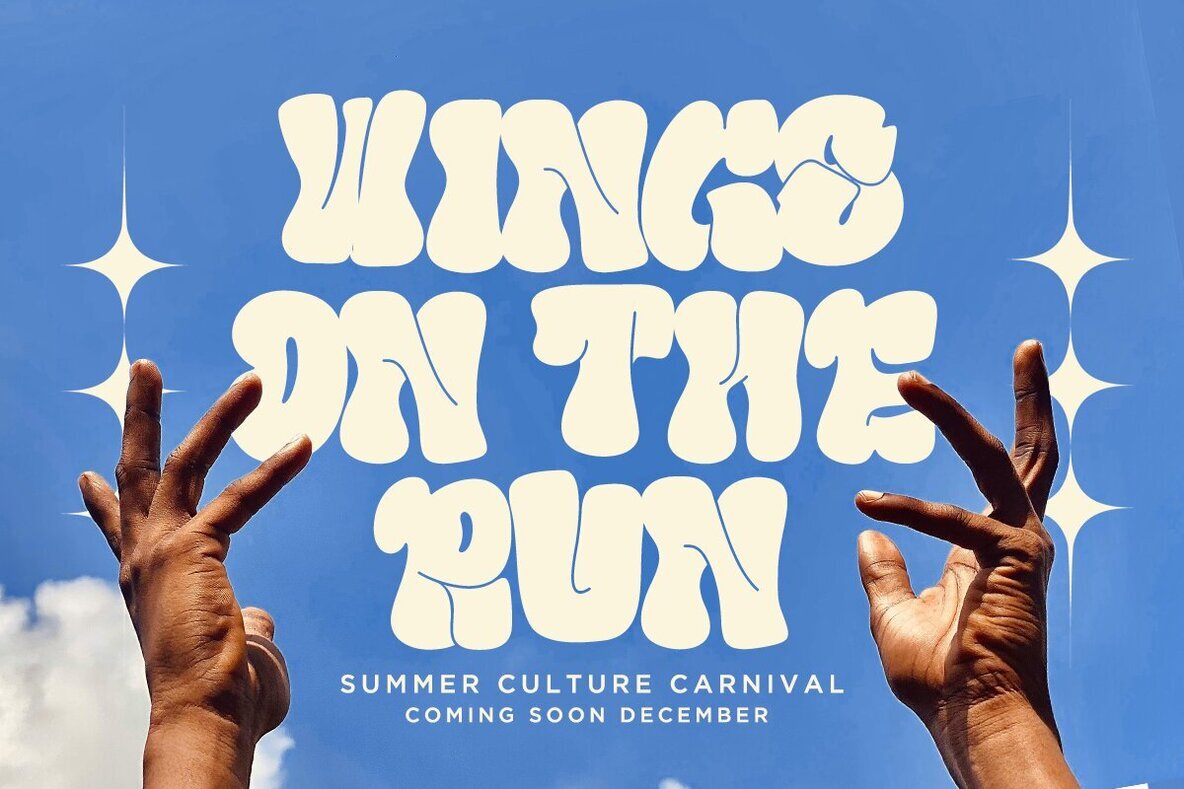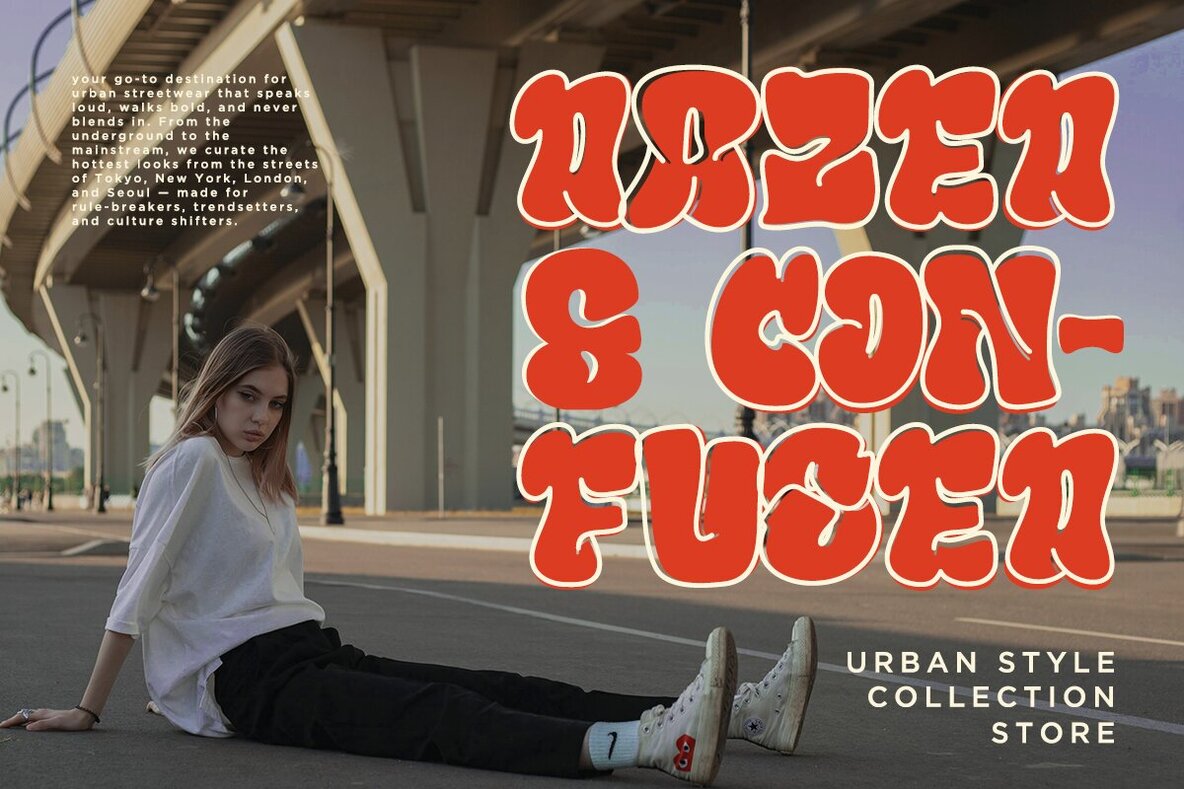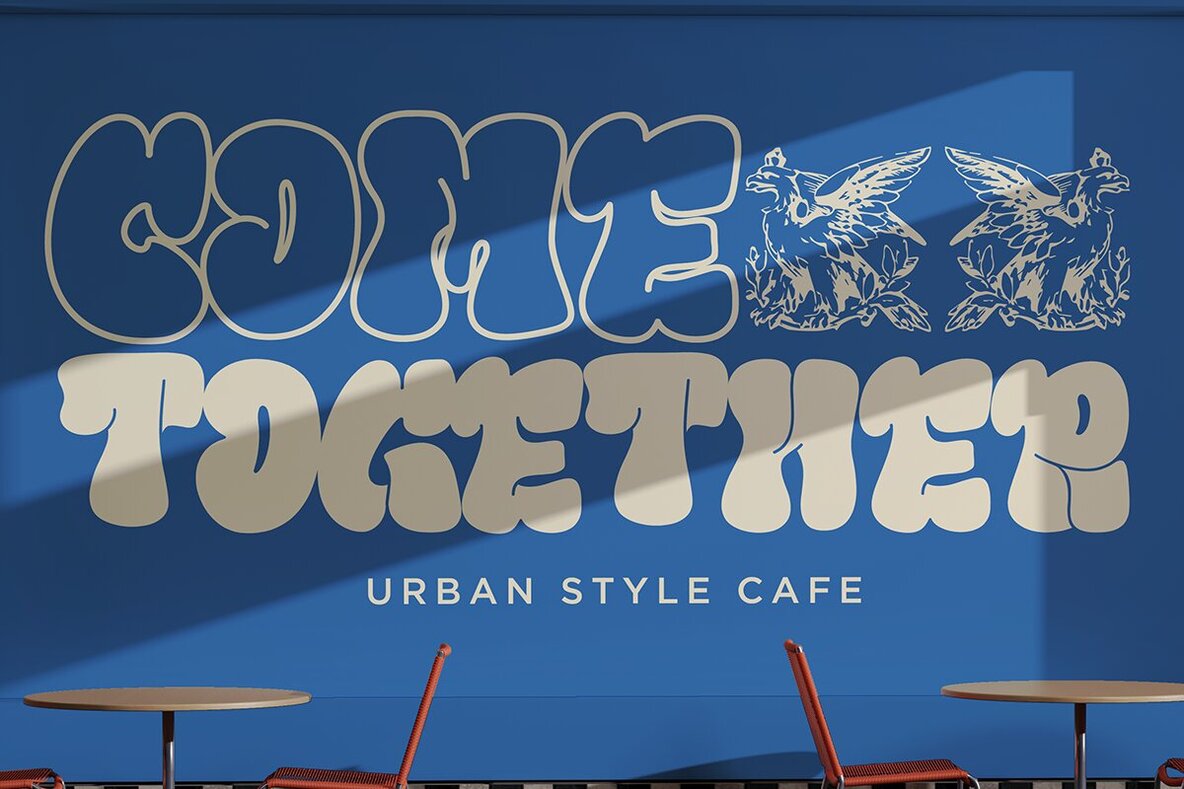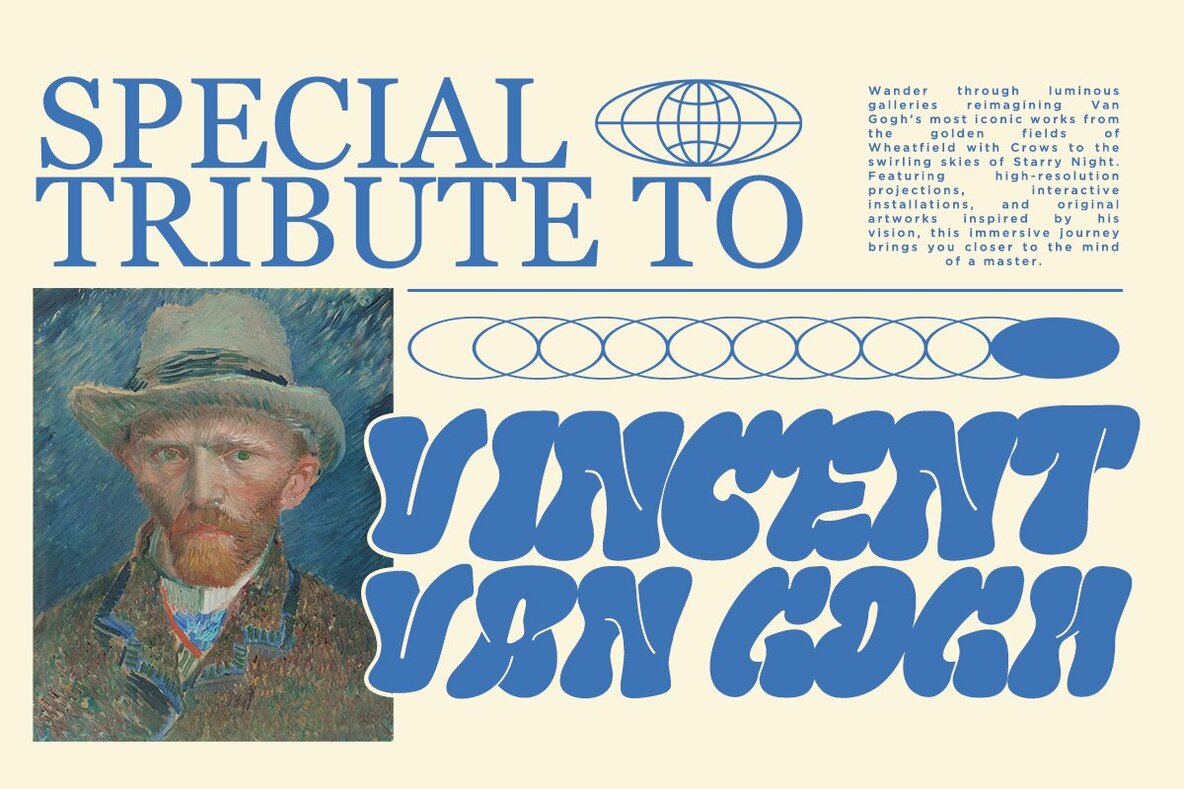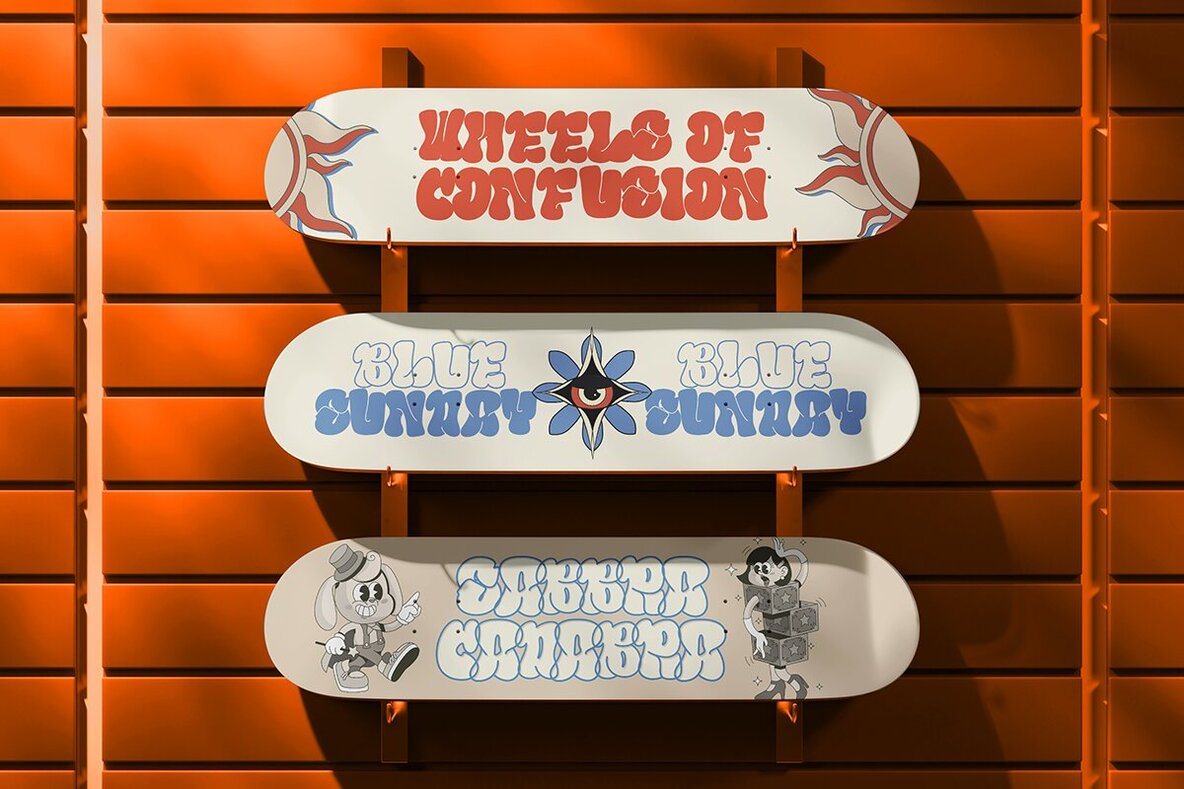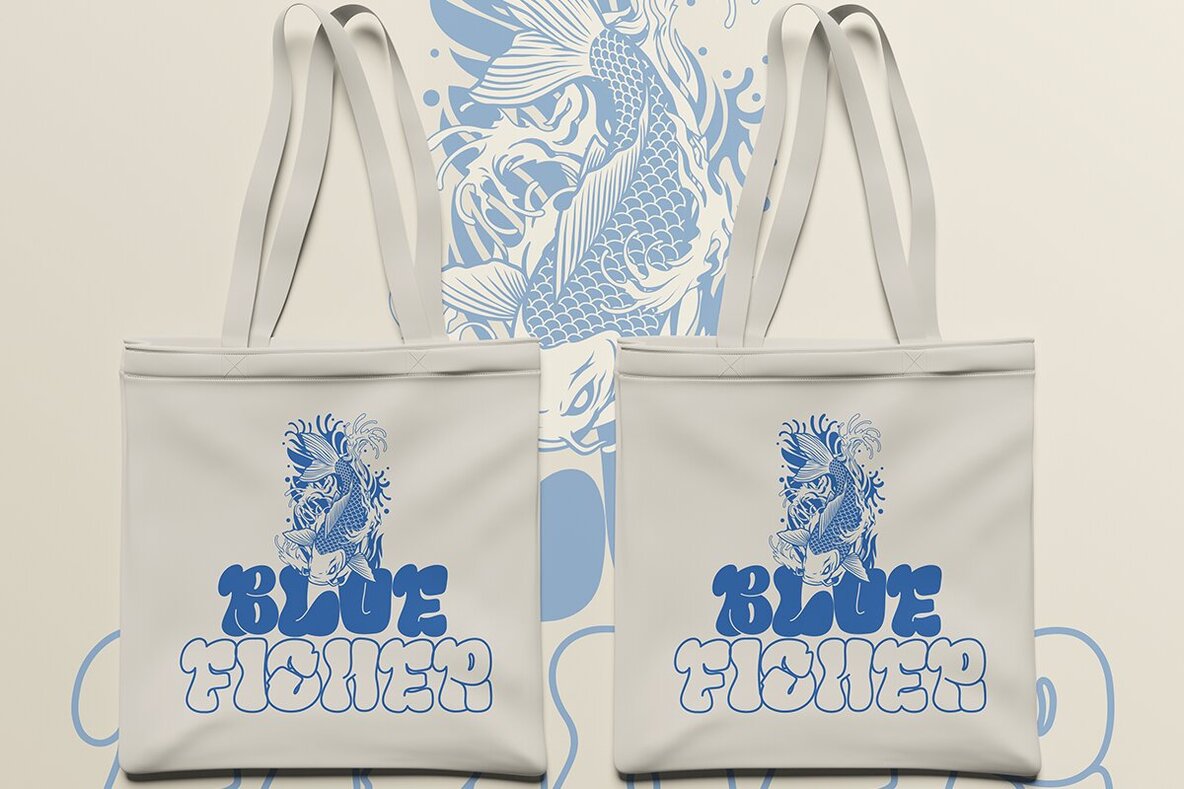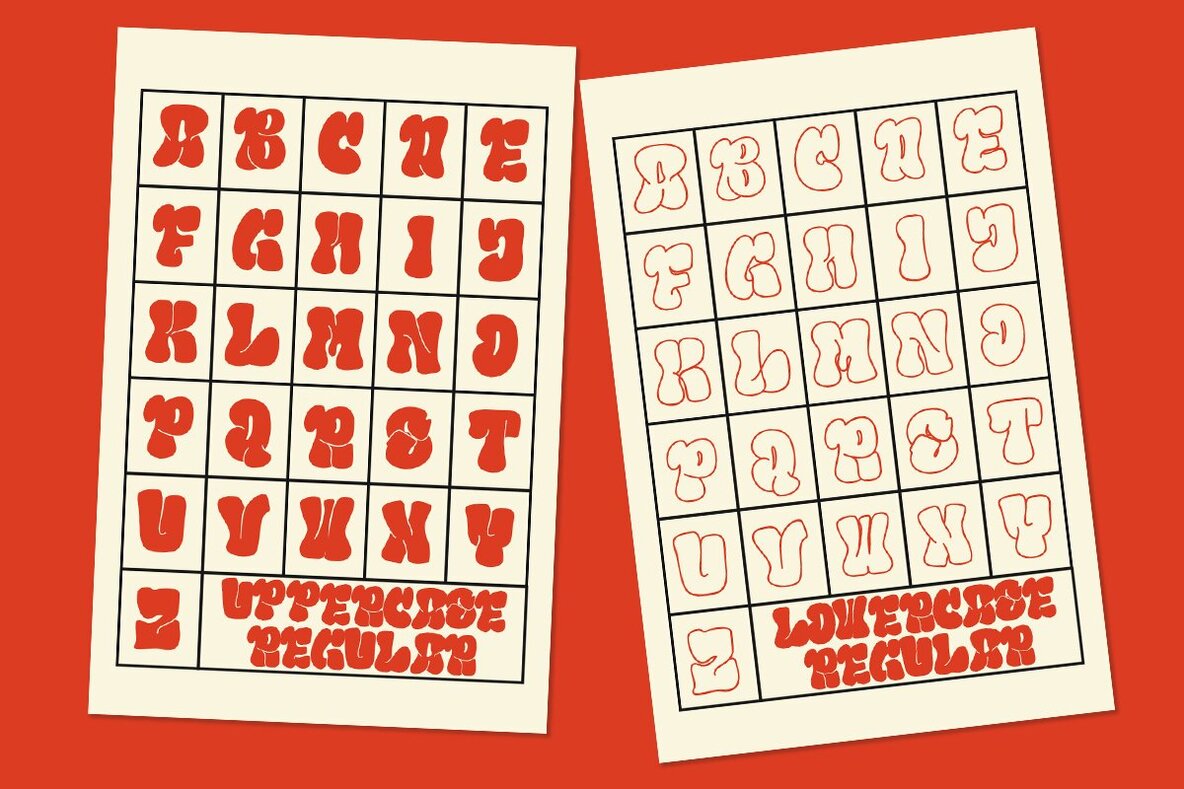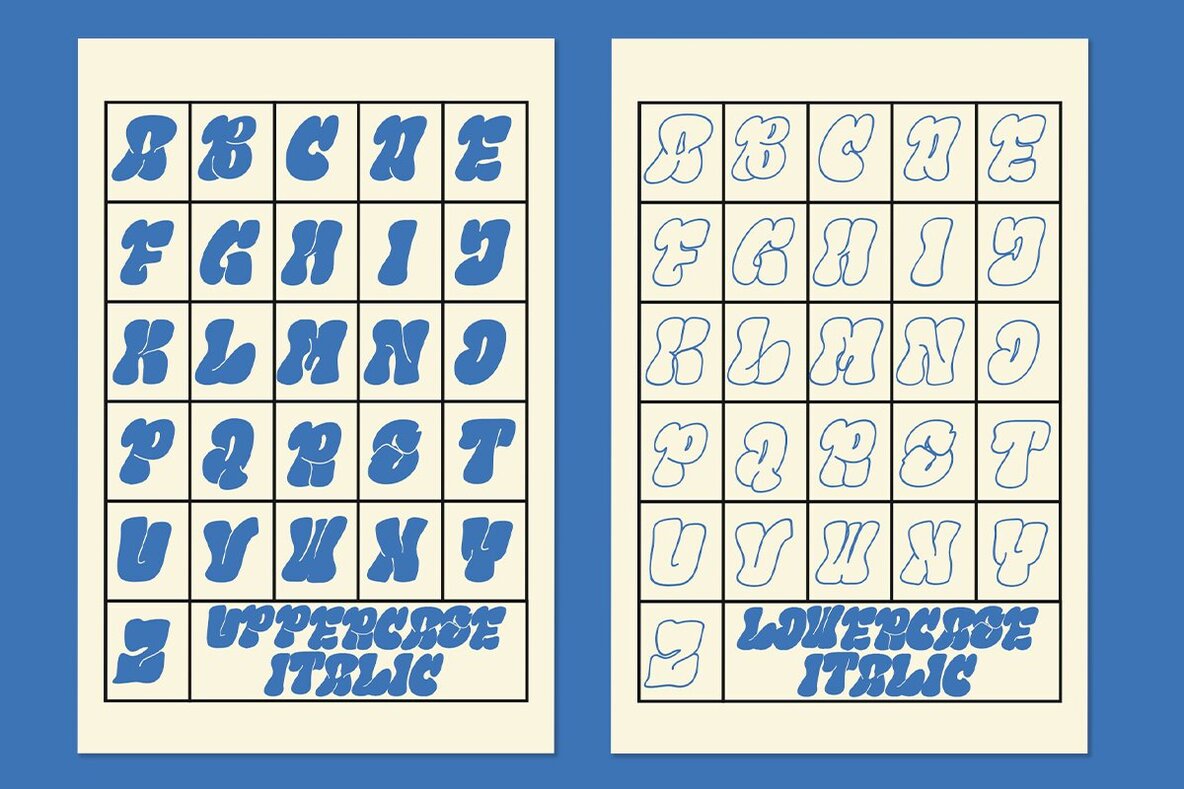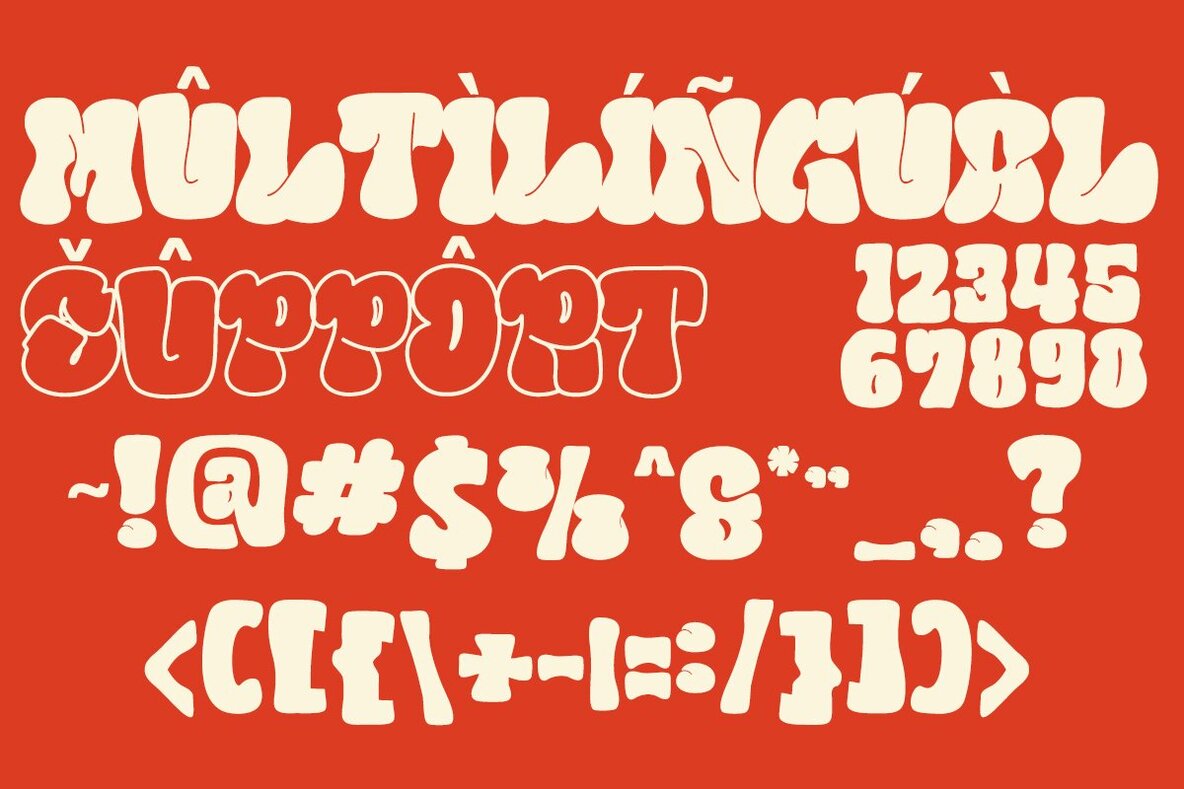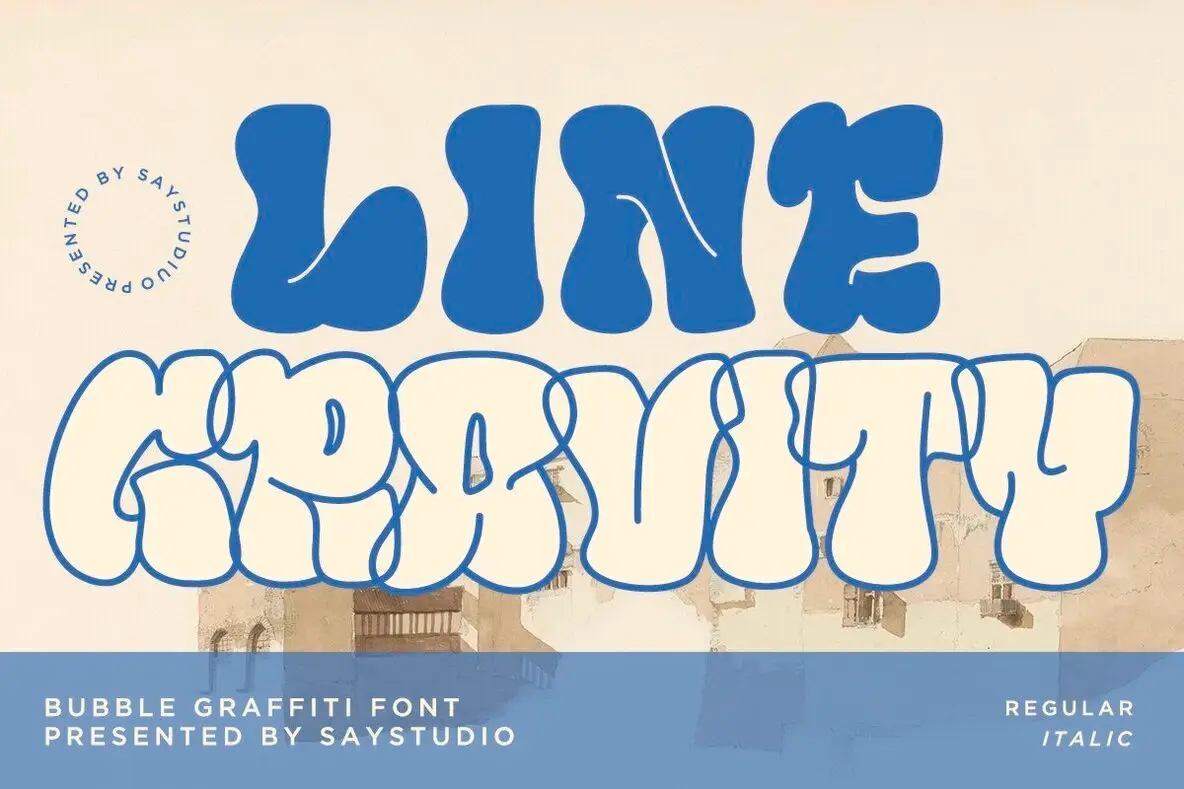
Line Gravity Font
Line Gravity is a whimsical typeface characterized by its playful bubble graffiti aesthetics and smooth, rounded contours. This font radiates a sense of fun and casualness, making it ideal for bold applications such as posters, flyers, or street-style designs. Its compatibility with sans-serif fonts enhances its utility in contemporary layouts, while the hand-drawn details maintain a sense of vitality without compromising clarity. Line Gravity strikes a harmonious balance between retro allure and urban sophistication.Line Gravity: A Playful Bubble Graffiti Font